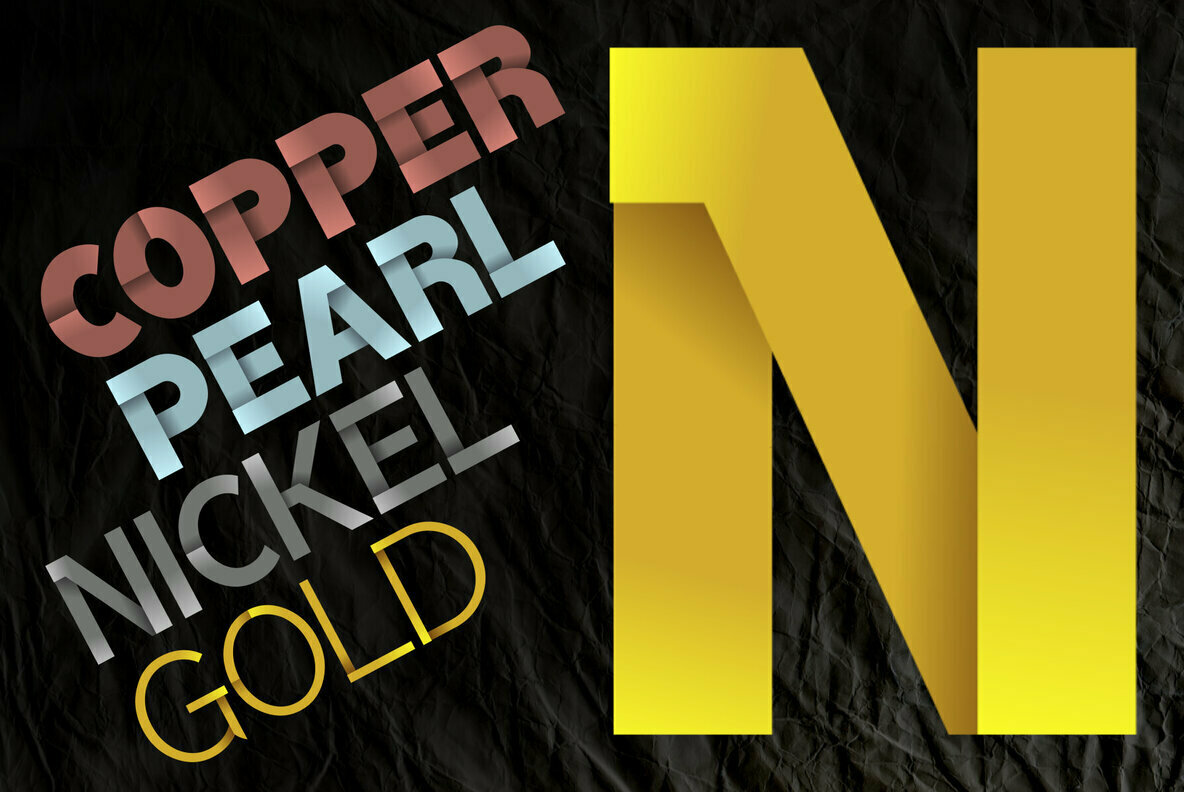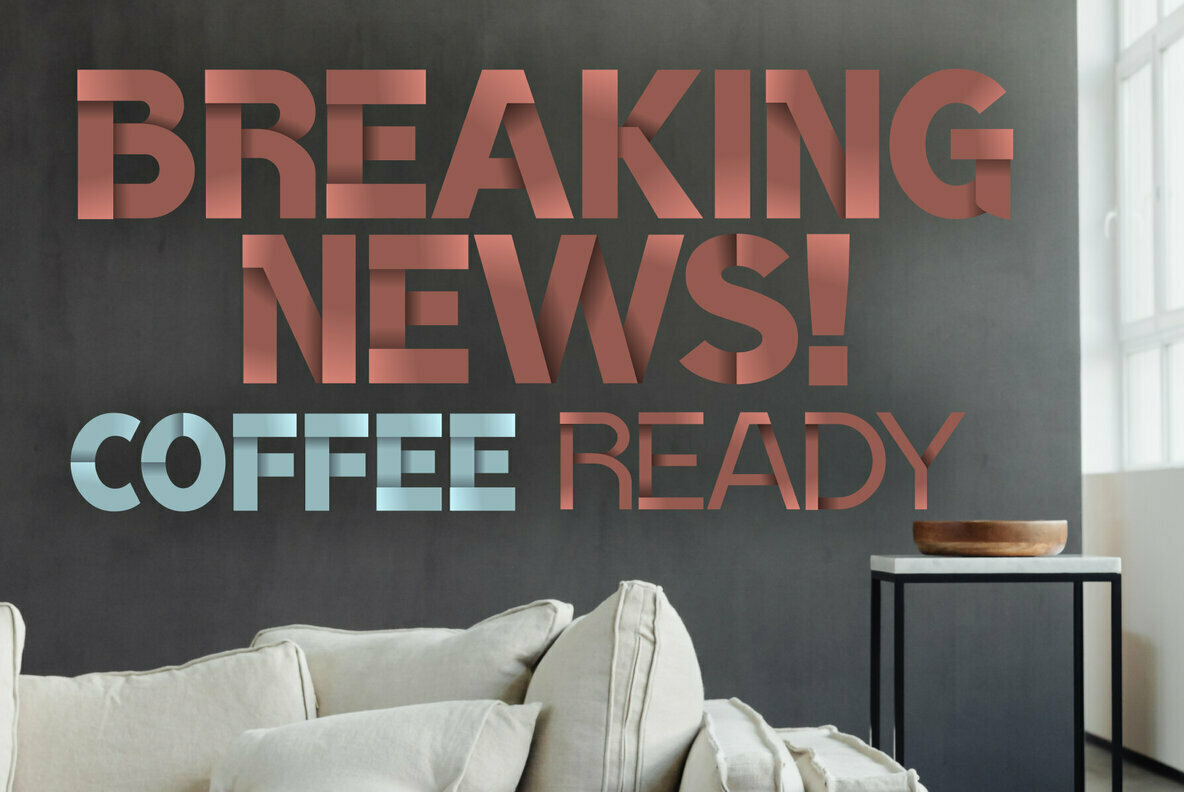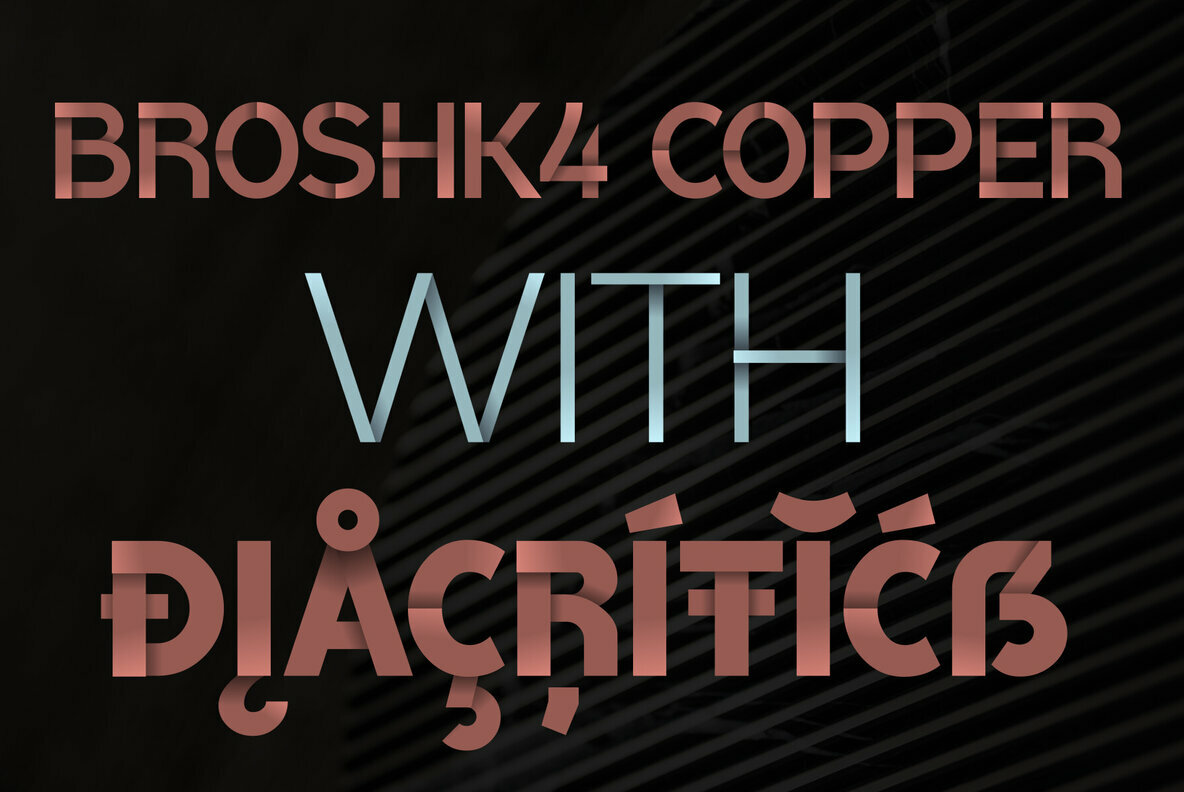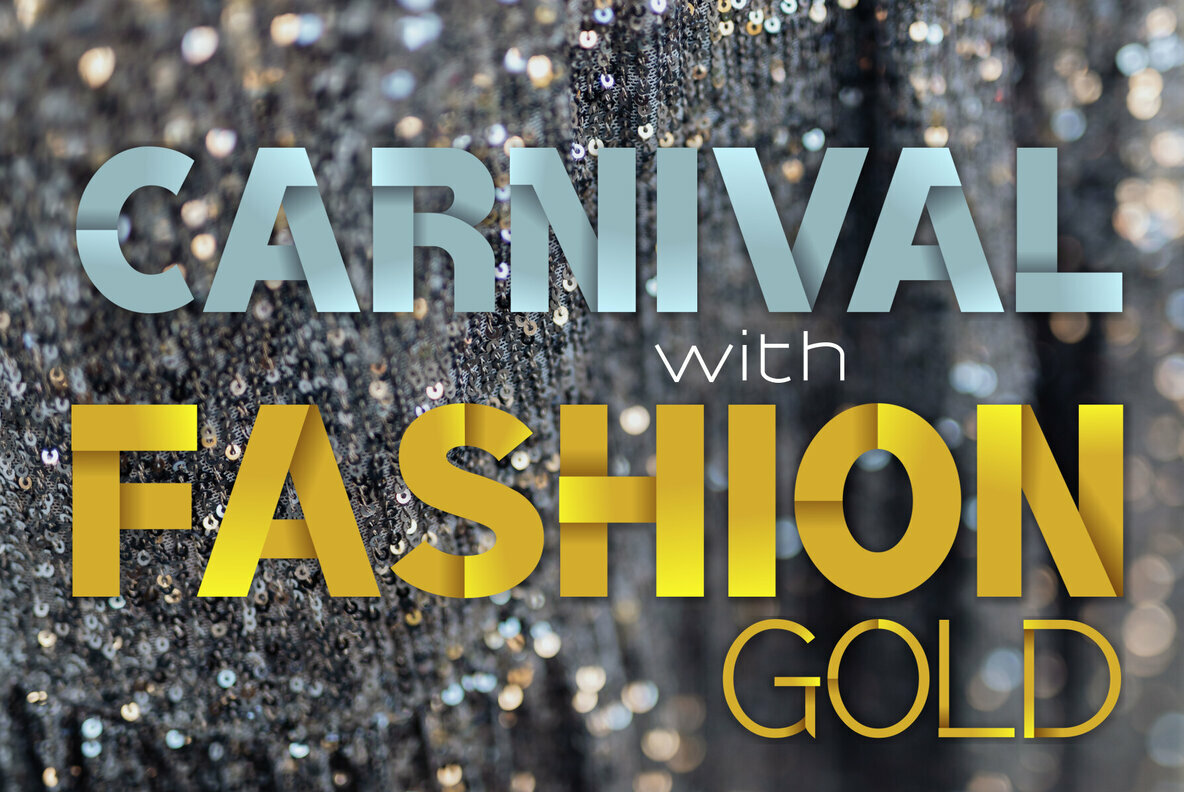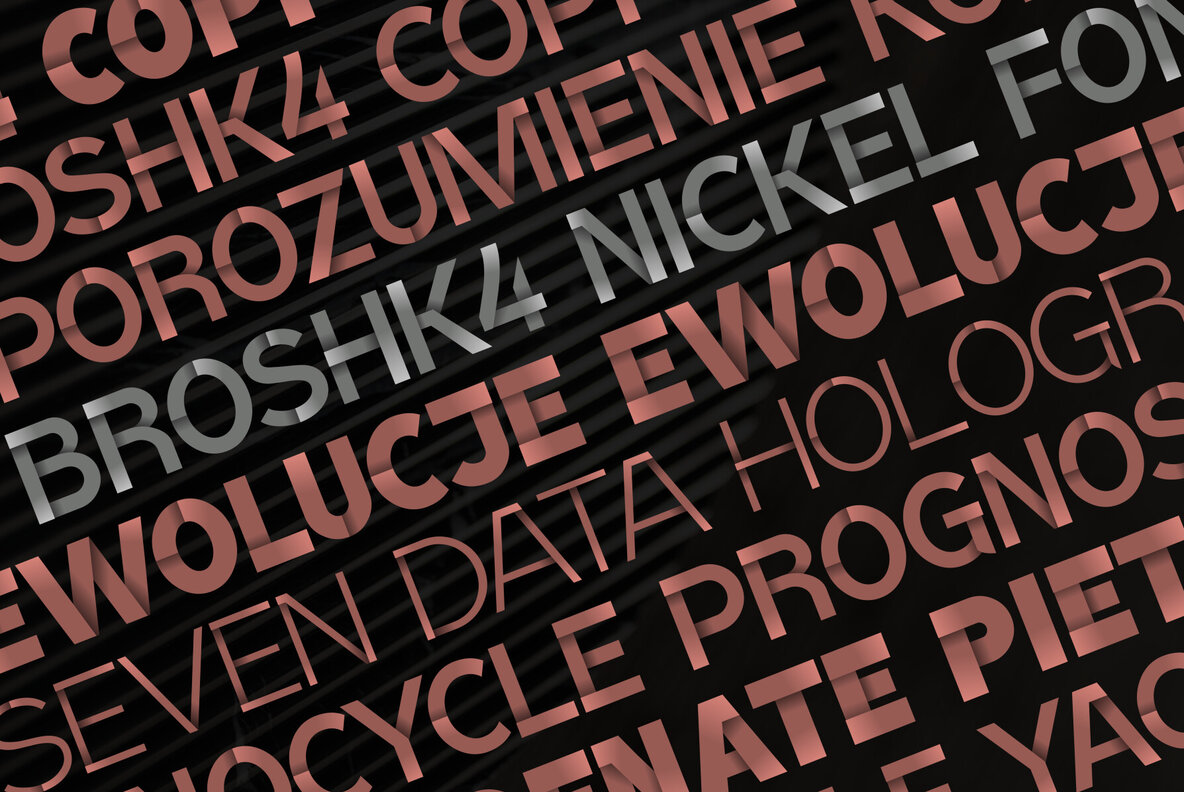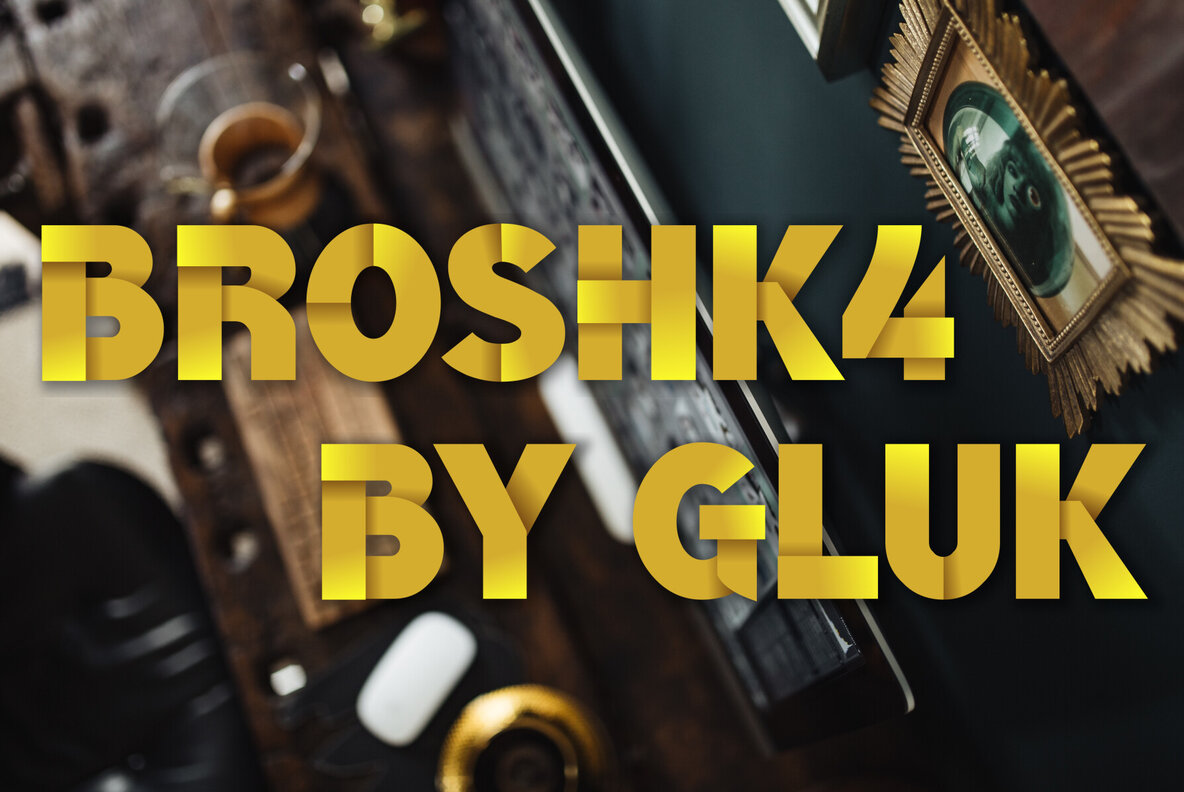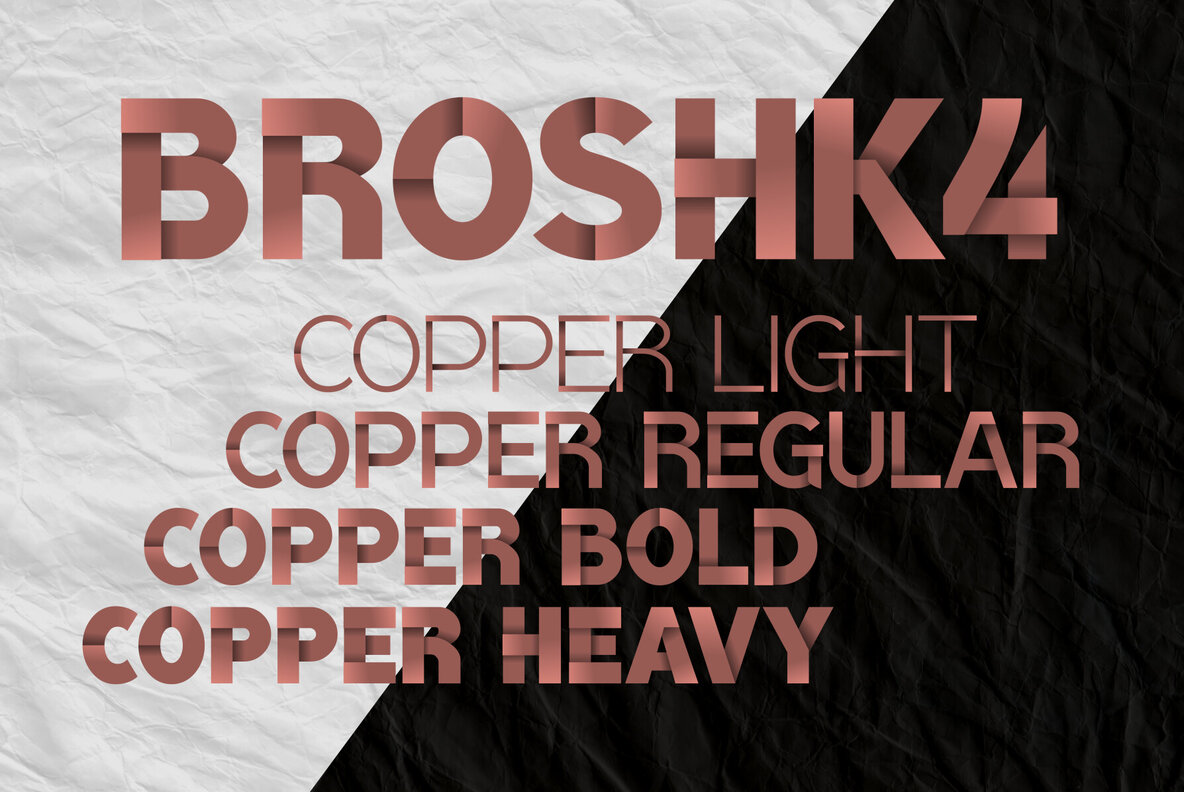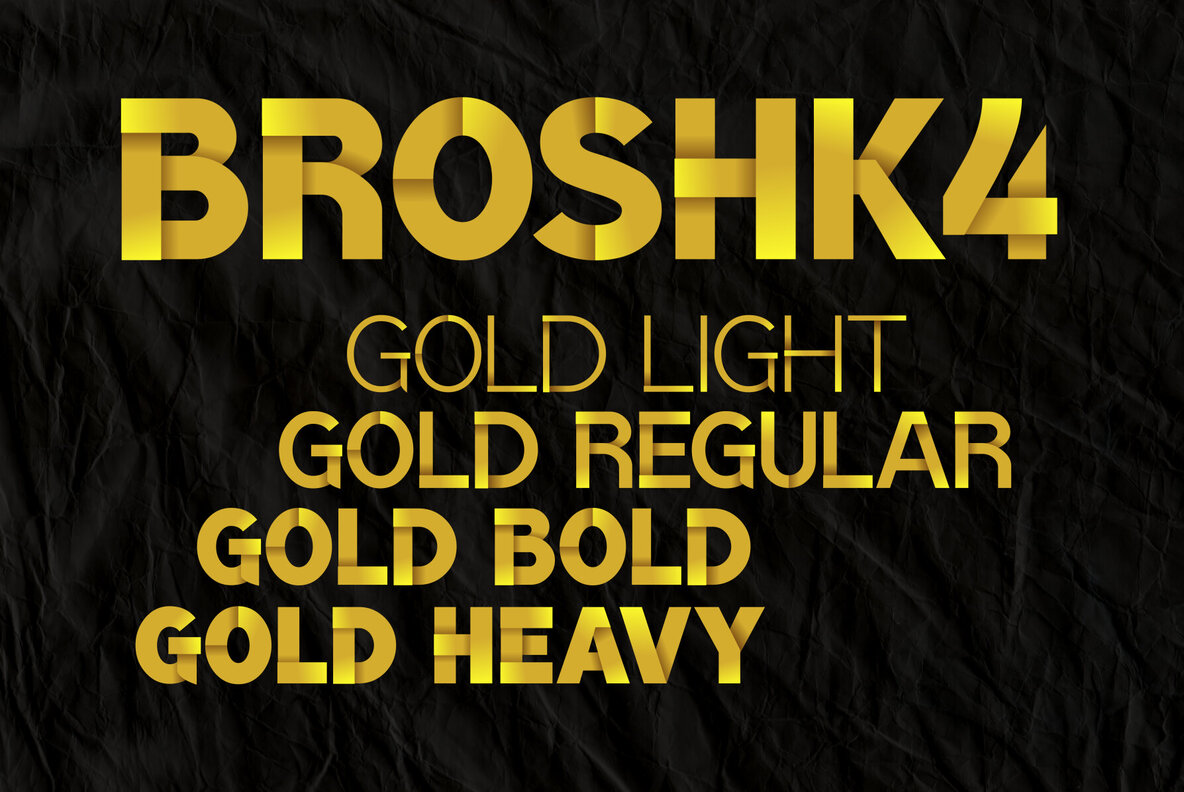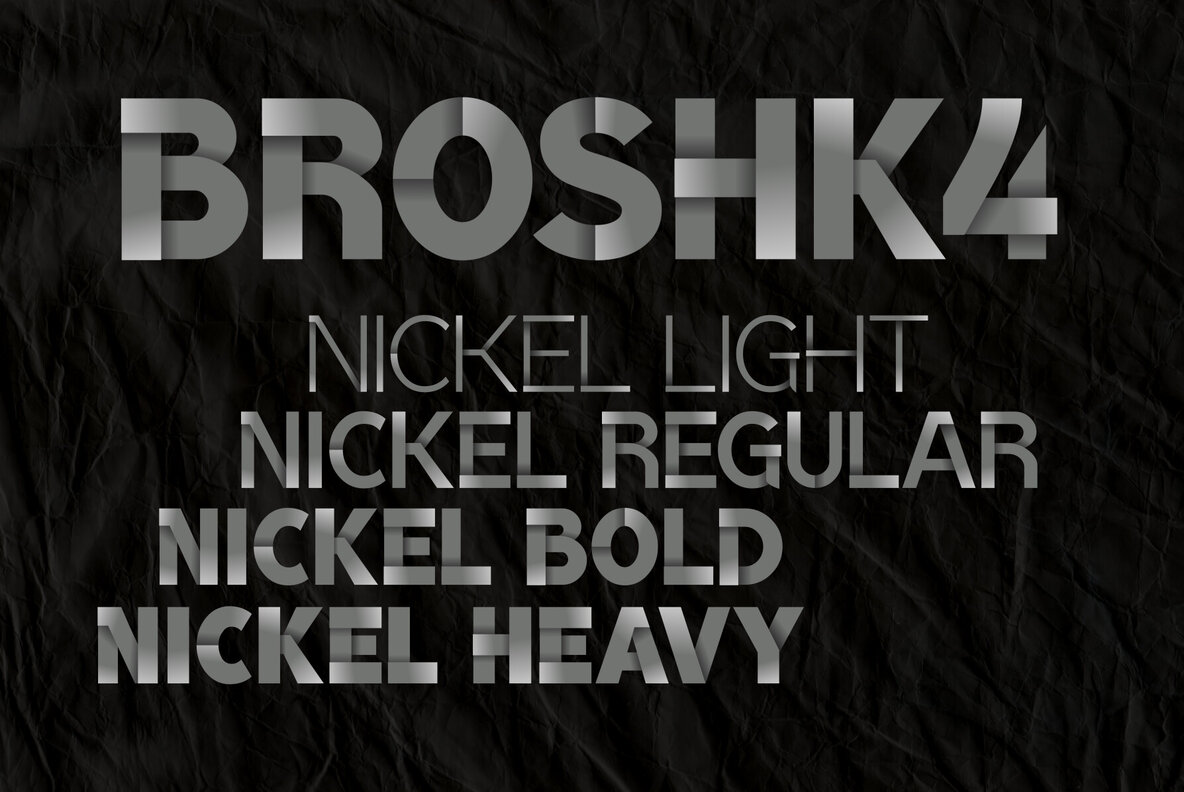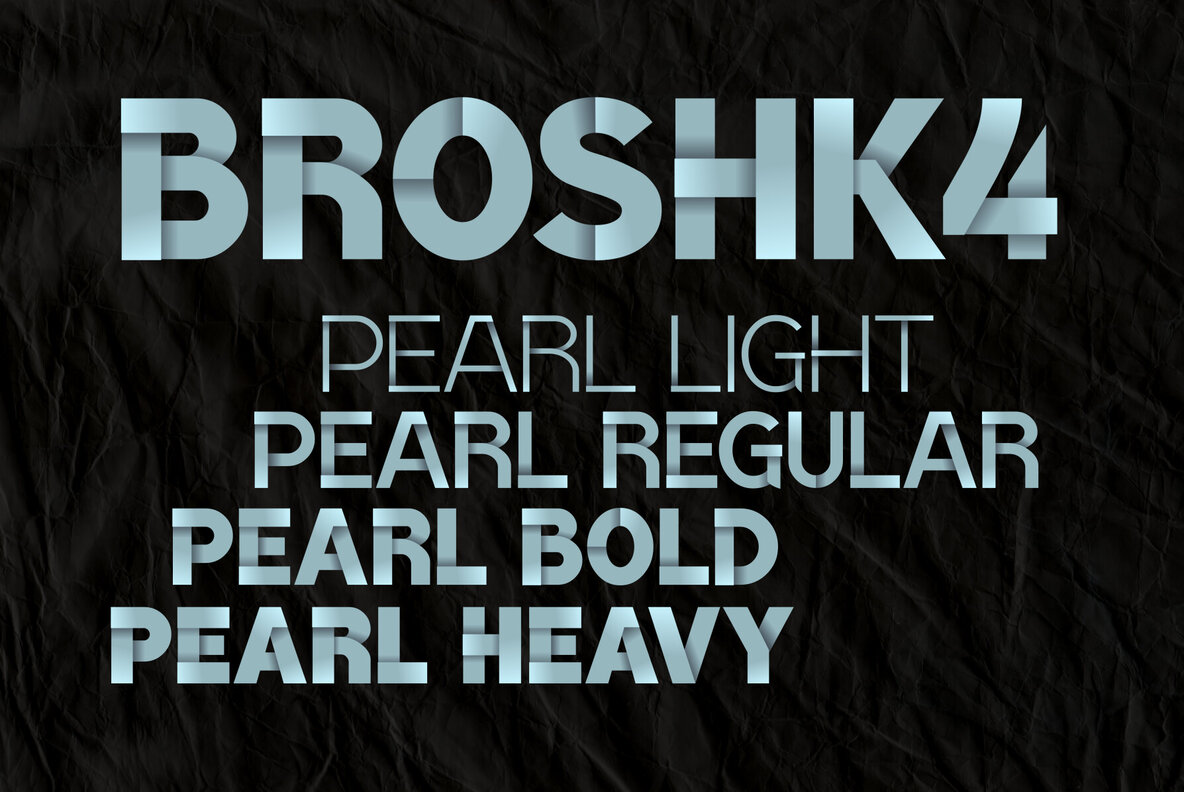
BroshK4 Color Font
BroshK4 offers a visually captivating experience with its vibrant range of decorative color fonts. Designed to make an impact, each variant within this collection presents a different finish—whether it's the opulent glow of gold or the refined sheen of nickel. BroshK4 stands out as a versatile option for designers seeking to infuse their projects with sophisticated color play. This comprehensive palette provides designers with the flexibility to apply personality and texture to any creative endeavor, enhancing visual storytelling in digital and print formats. Suitable for use in browsers like Mozilla Firefox and Microsoft Edge, as well as applications including Photoshop CC 2017 and Illustrator CC 2018.BroshK4: A Spectrum of Decorative Color Fonts